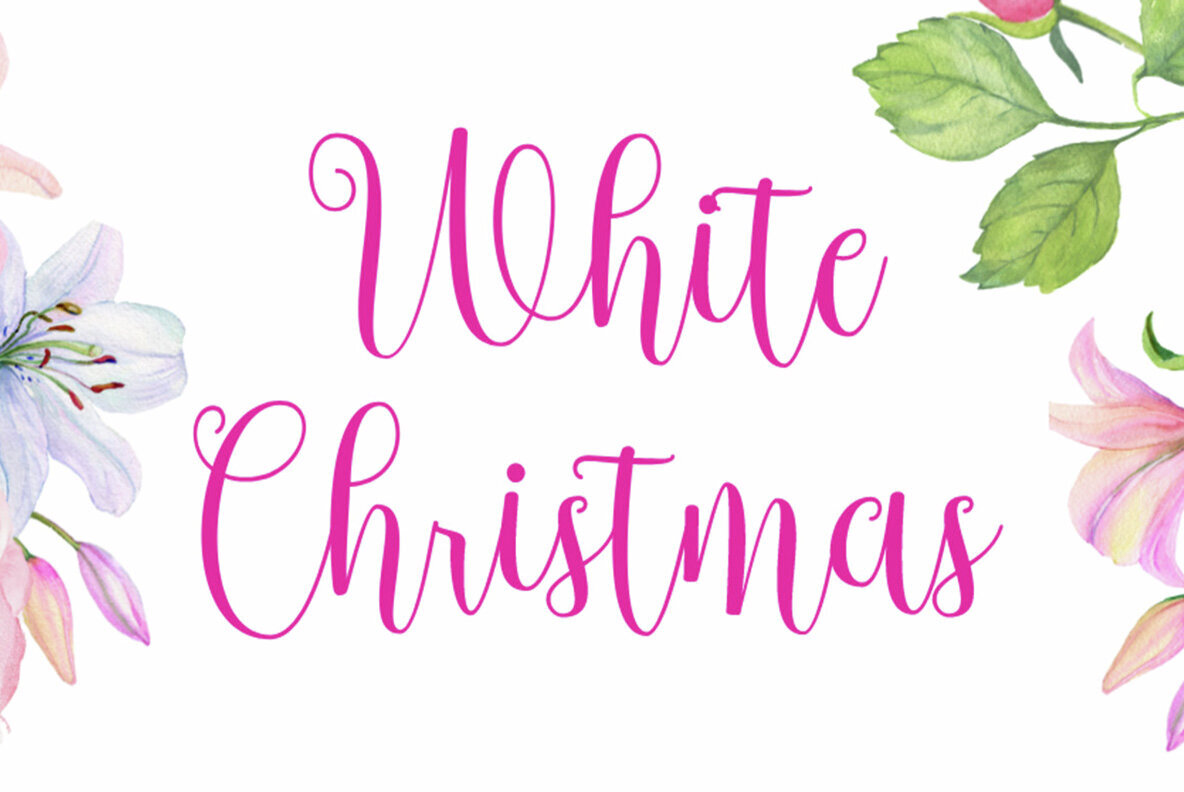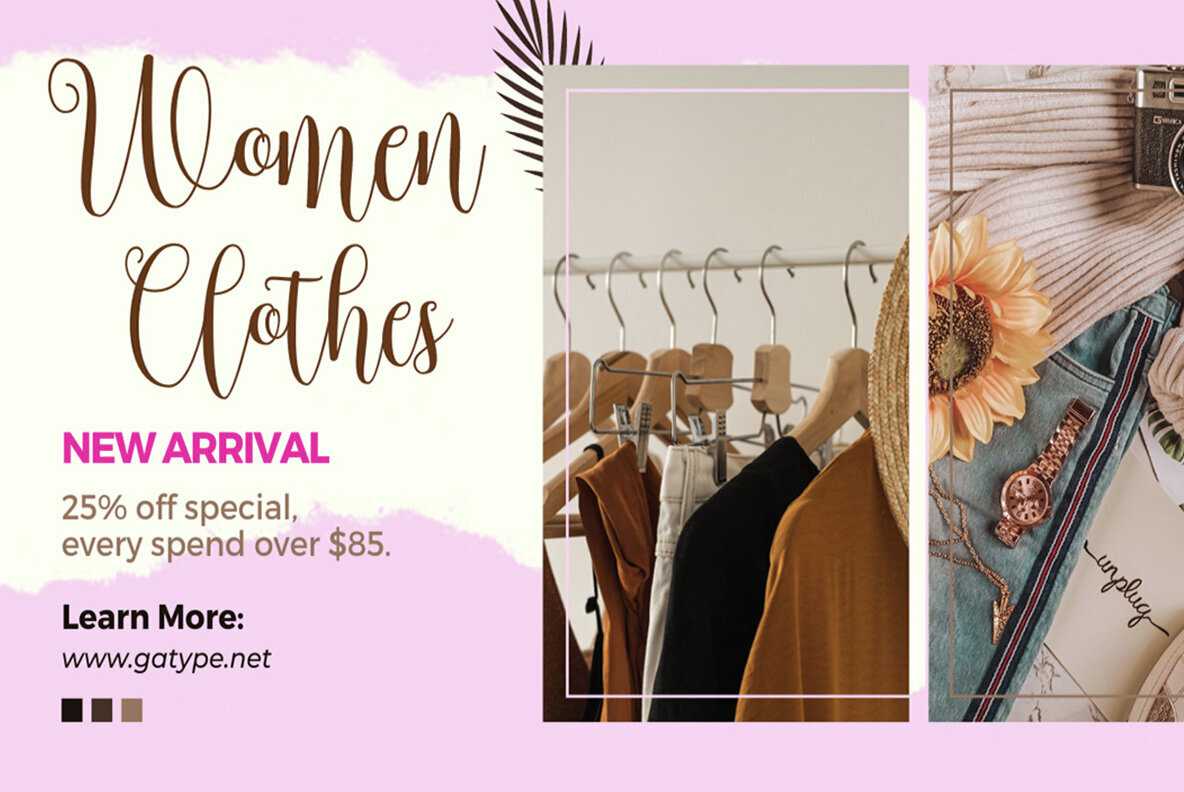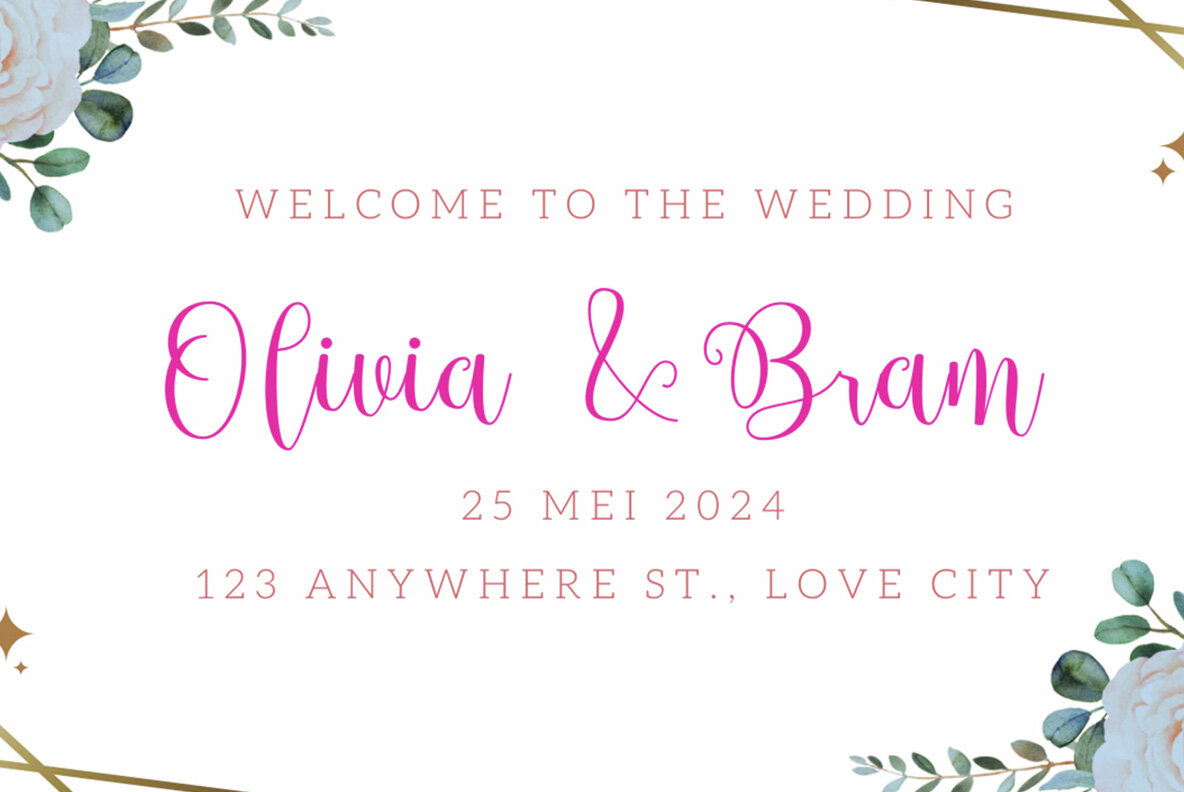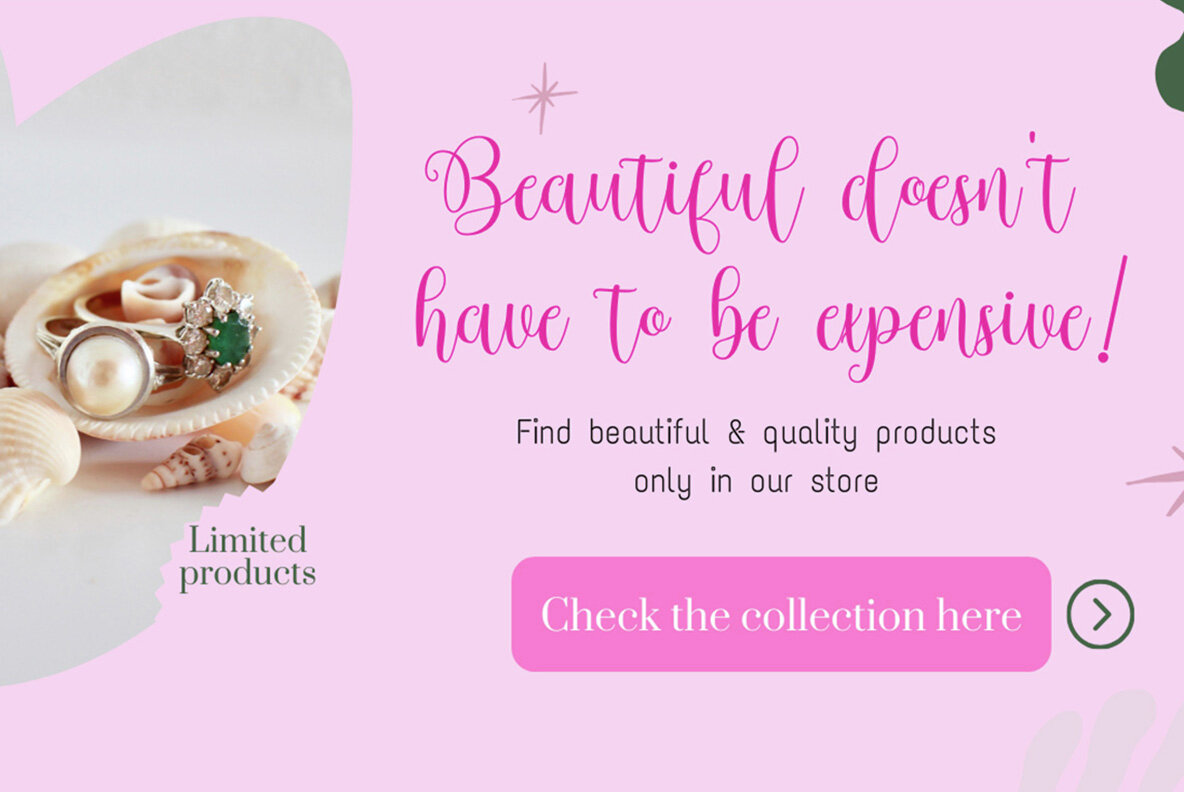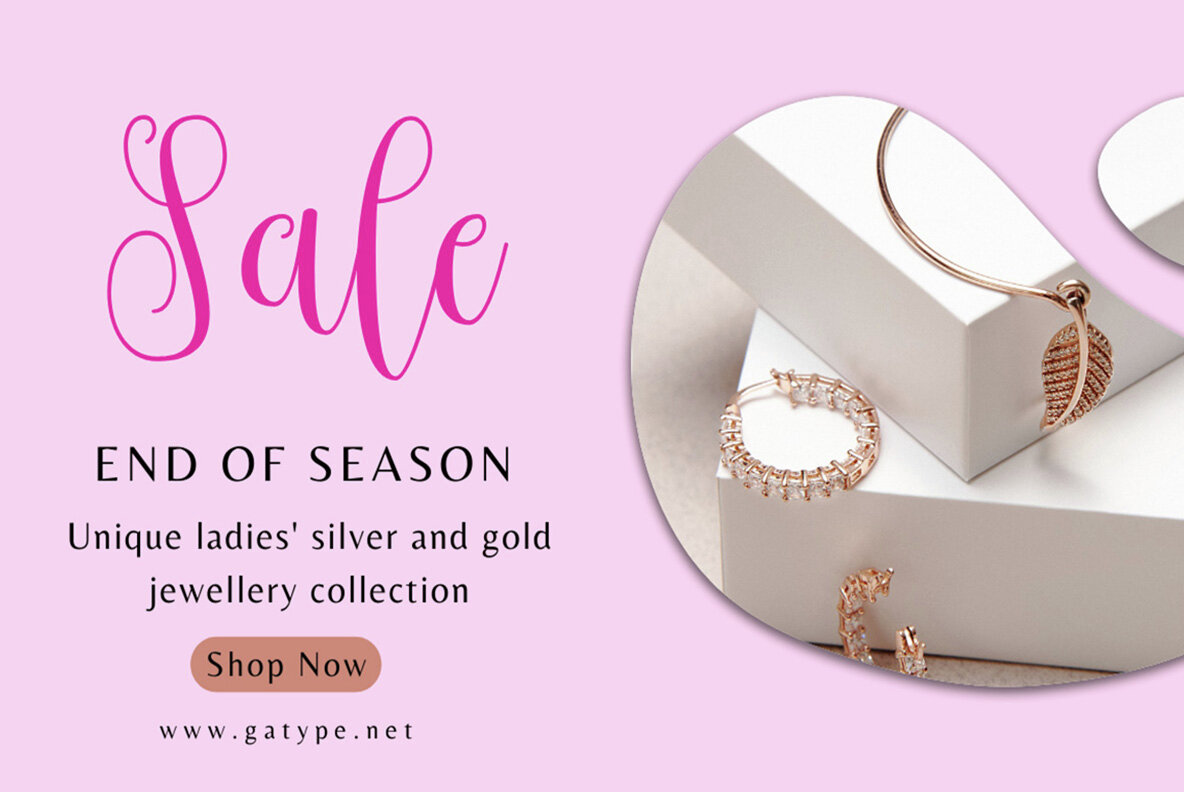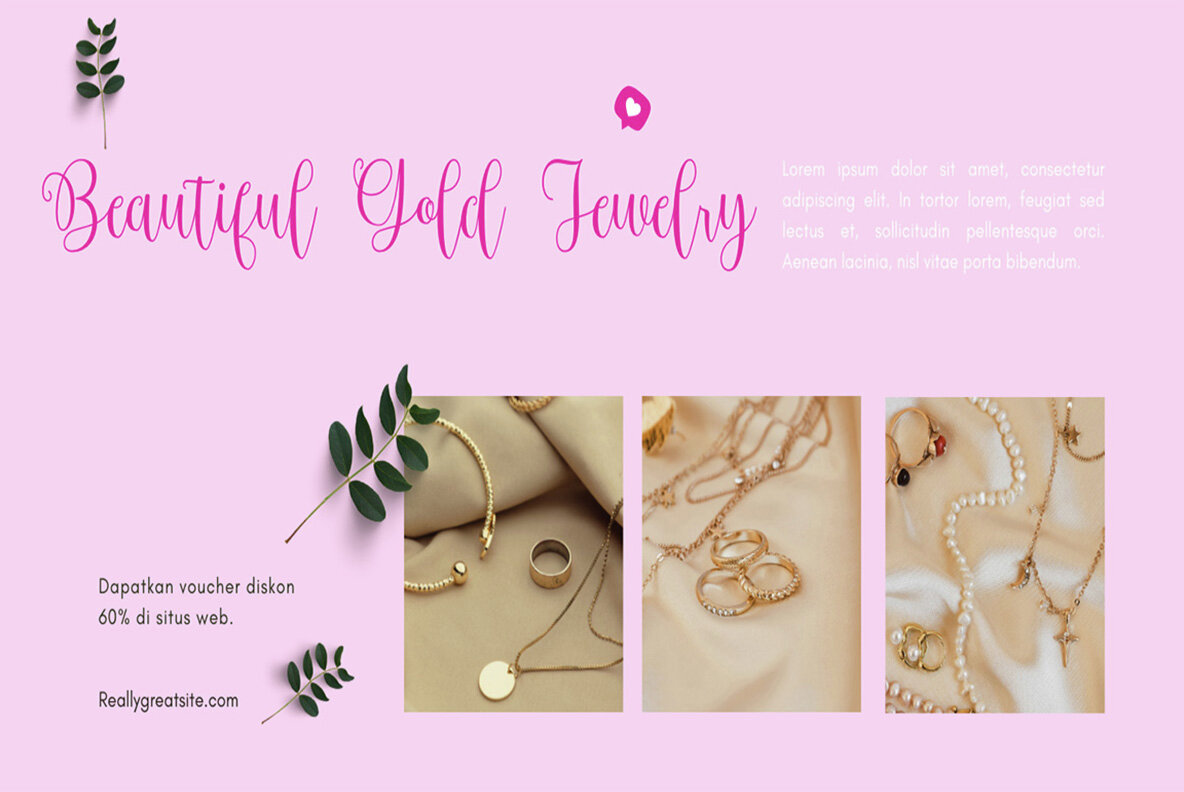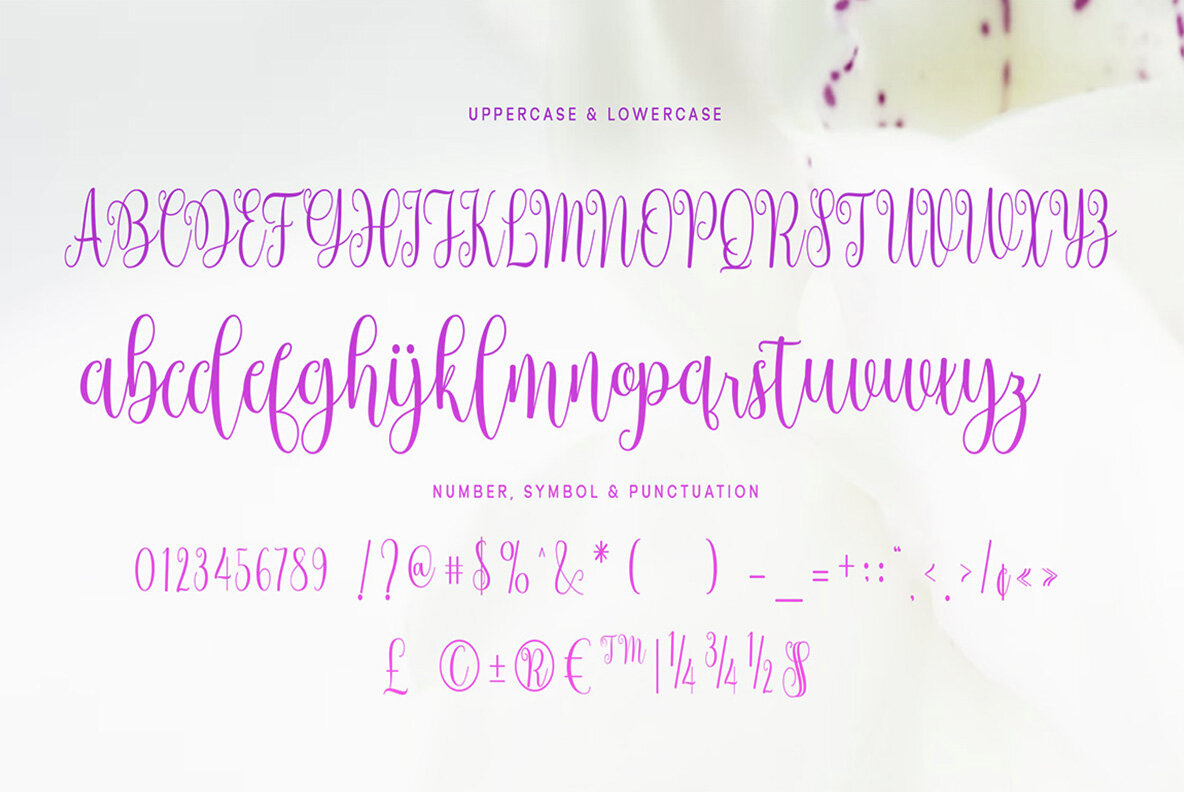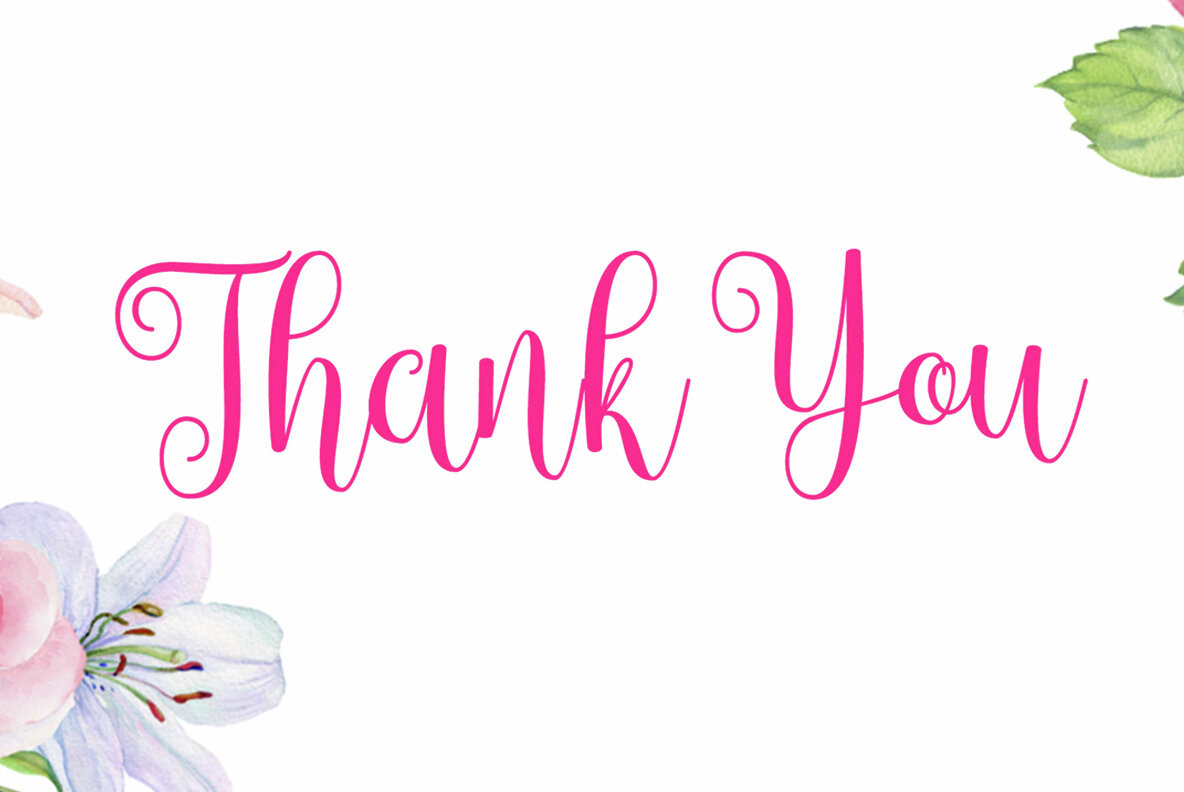
Bostek Font
Bostek Regular
Bostek is a script font that offers an artistic, handwritten style with smooth, interconnected strokes, delivering a stylish and slightly vintage appearance. Its elegant letterforms possess a thickness and flexibility that create a personal and inviting aesthetic. This makes Bostek ideal for projects requiring a warm and distinctive touch, such as wedding invitations, boutique logos, or other branding elements seeking a sophisticated look.
The modern tone of Bostek is complemented by its classic calligraphic qualities, making the font both elegant and versatile. Featuring dramatic curves and intricate ornamental details, it is perfectly suited for decorative elements and texts where an artistic flair is desired. Its ability to blend modern appeal with traditional elegance makes Bostek a unique choice for designers aiming to infuse their work with a blend of contemporary and timeless characteristics.